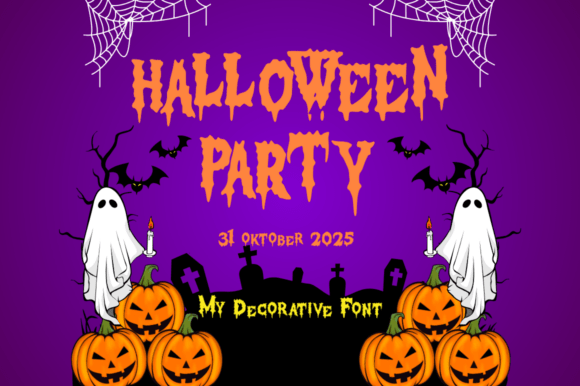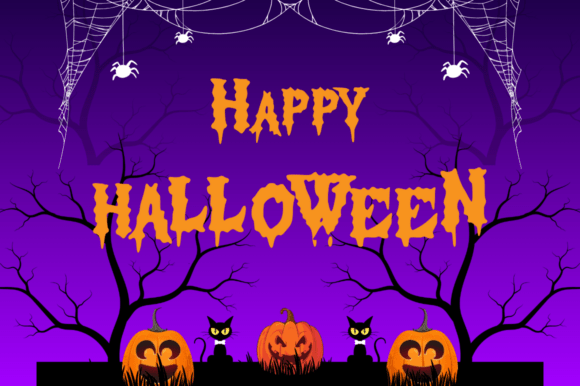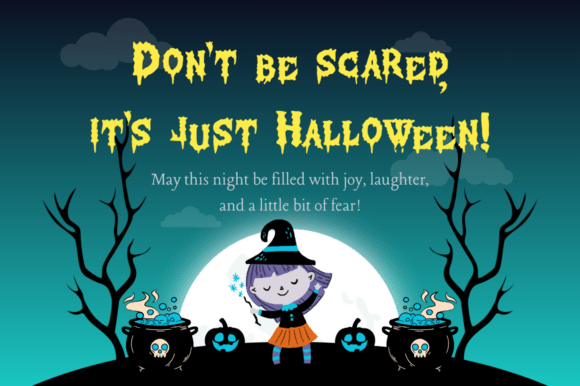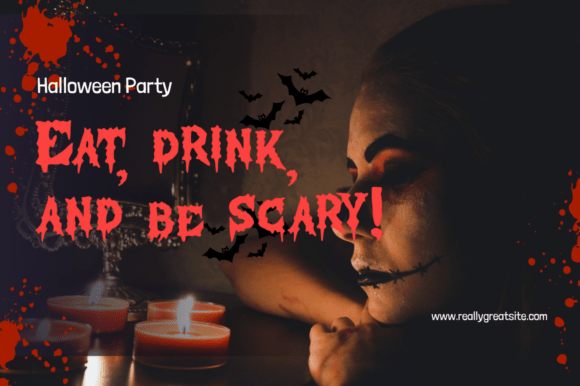
My Decorative Font
About the My Decorative Font
Presenting My Decorative Font, a unique and stylish typeface that will make your work stand out. My decorative font is a bold and chilling display font inspired by classic horror vibes. With sharp edges and dripping ink-like details, it’s perfect for Halloween projects, horror movie posters, spooky invitations, and any design that needs a terrifying touch.
Add a scream-worthy aesthetic to your creative work with Dreadrips!
Its strong visual impact makes it ideal for headlines, posters, and short impactful statements in branding materials. However, the intricate details and bold weight make it unsuitable for body text or UI elements where readability is paramount. Avoid using it for long paragraphs or small sizes.
Consider pairing it with a clean sans-serif like Montserrat for a strong contrast, or a more delicate serif font like Playfair Display for a sophisticated, slightly gothic feel. For a more modern edge, a geometric sans-serif such as Futura would create a striking juxtaposition.
The overall personality is bold, dramatic, and undeniably chilling; perfect for brands or projects associated with horror, suspense, or gothic aesthetics.
My Decorative Font Example